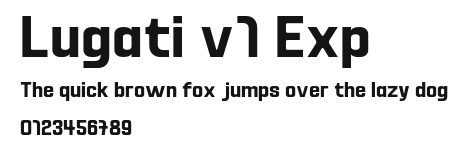
• Font Name: Lugati v1 Exp
Lugati v1 Exp.otf is a modern, elegant sans-serif font designed for ultimate readability and visual harmony. Perfect for branding, headlines, web design, and print materials.